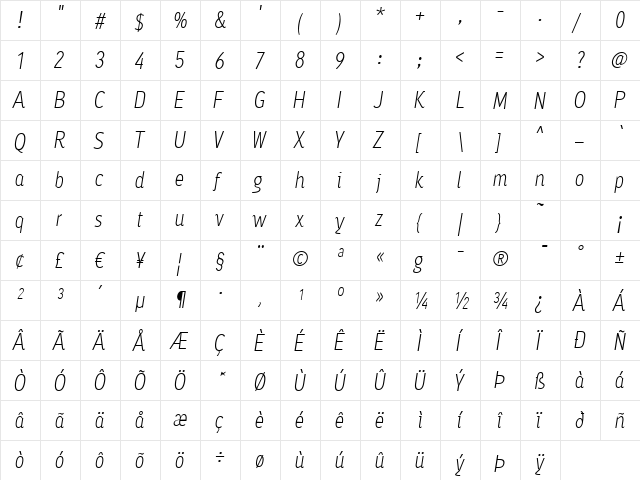
Ayumi Light Italic
Design Context for Ayumi Light Typeface
Ayumi Light takes a measured approach to typography — its balanced proportions and neutral character make it a reliable workhorse for both digital and print work. The dynamic lean of this cut emphasises speed and emphasis in any layout. Its slender proportions lend an understated elegance to any composition.
Pro Tip: Use Ayumi Light for emphasis, pull quotes, and subheadings where its slanted energy can add rhythm to the layout.